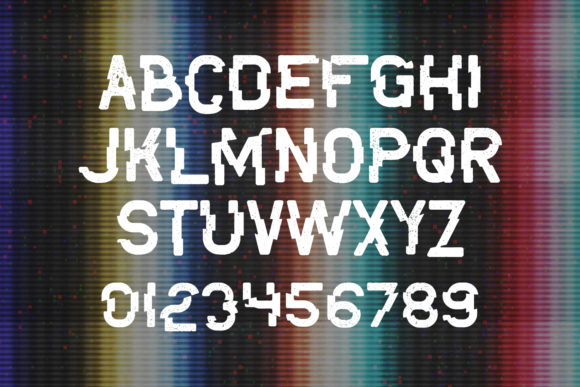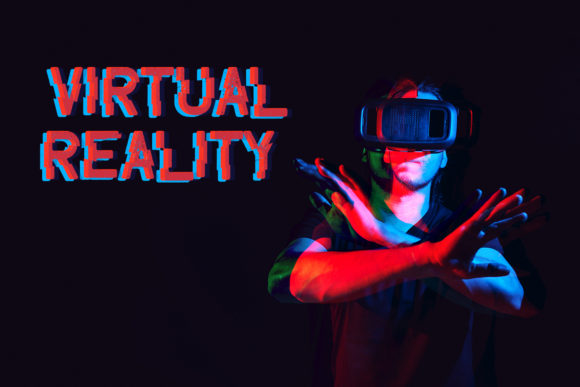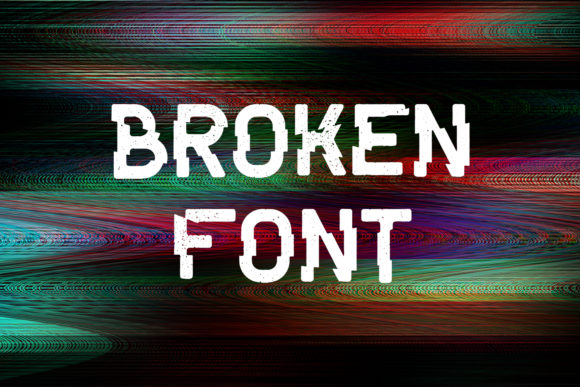
The Broken Font: A Design Game-Changer
I’ll never forget the time I was working on a project, pouring my heart and soul into it, only to realize that I was stuck with a font that just wasn’t cutting it. The client wanted something bold, something eye-catching, and something that would make their brand stand out. I scoured the internet, tried out countless fonts, but nothing seemed quite right. That was until I stumbled upon the Broken font. π₯
Broken brings its own unique style to any design project that you wish to develop. This fantastic display font is best suited for headlines of all sizes, as well as for blocks of text that have both maximum and minimum variations. Whether itβs for web, print, moving images or anything else, Broken will look spectacular.
- β¨ Unique and eye-catching design that adds a touch of edginess to any project
- β Highly versatile and can be used for a wide range of design projects, from web to print
- π Supports multiple languages and can be used for multilingual projects
While Broken is an amazing font, there are a few things to keep in mind. π€
- β οΈ Some characters may not work well in smaller font sizes, so it’s best to use it for headlines or titles
- π Limited ligatures and swashes, which may be a drawback for some designers
The Designer Inspiration Behind Broken
The Broken font was designed by a team of designers who wanted to create a font that would add a touch of edginess to any design project. The team was inspired by the world of graffiti and street art, and they wanted to create a font that would reflect the raw energy and creativity of these art forms.
Q: What is the Broken font?
A: The Broken font is a display font that’s designed for headlines and titles. It’s known for its unique and eye-catching design that adds a touch of edginess to any project.